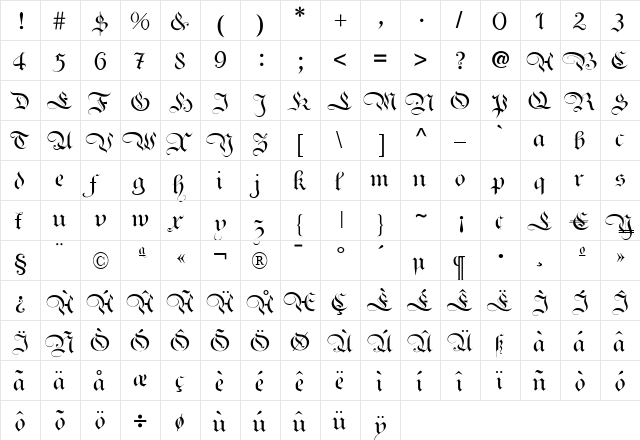
Ayres Royal Plus Regular
Design Context for Ayres Royal Plus Typeface
Ayres Royal Plus is a composed and adaptable typeface that performs quietly and consistently across a wide range of design contexts.